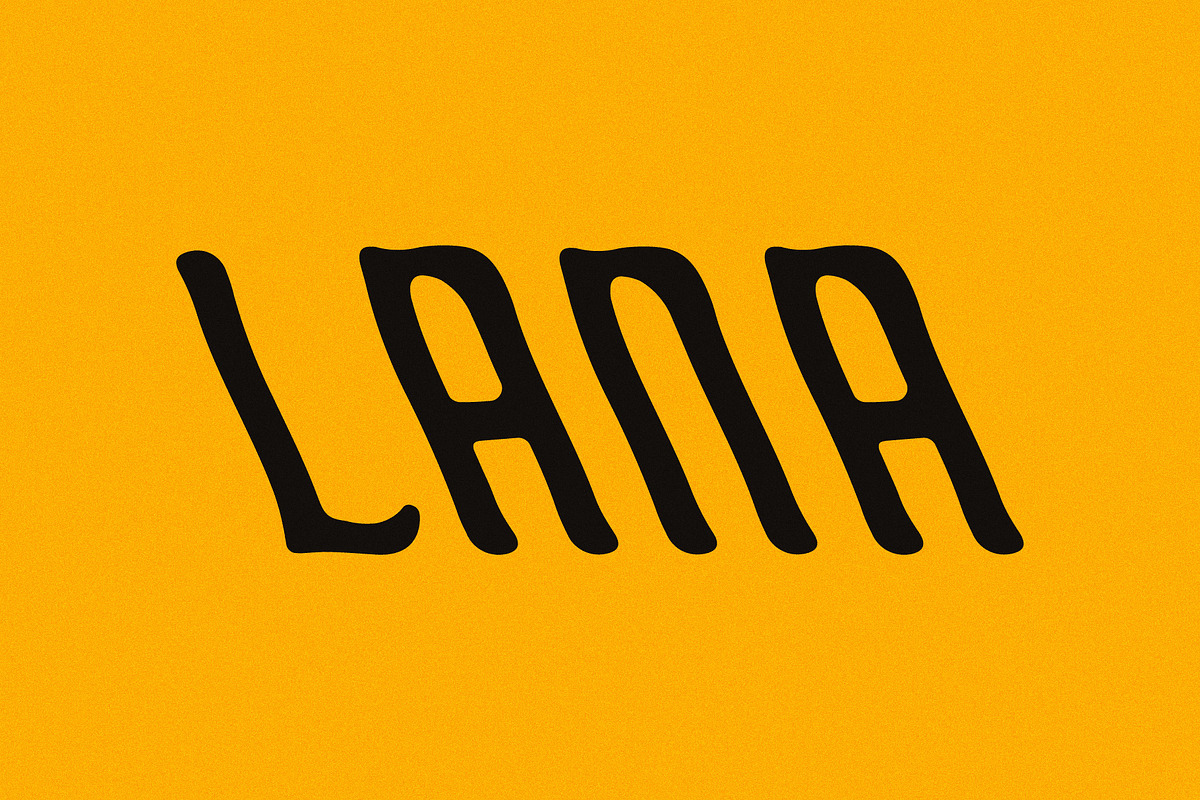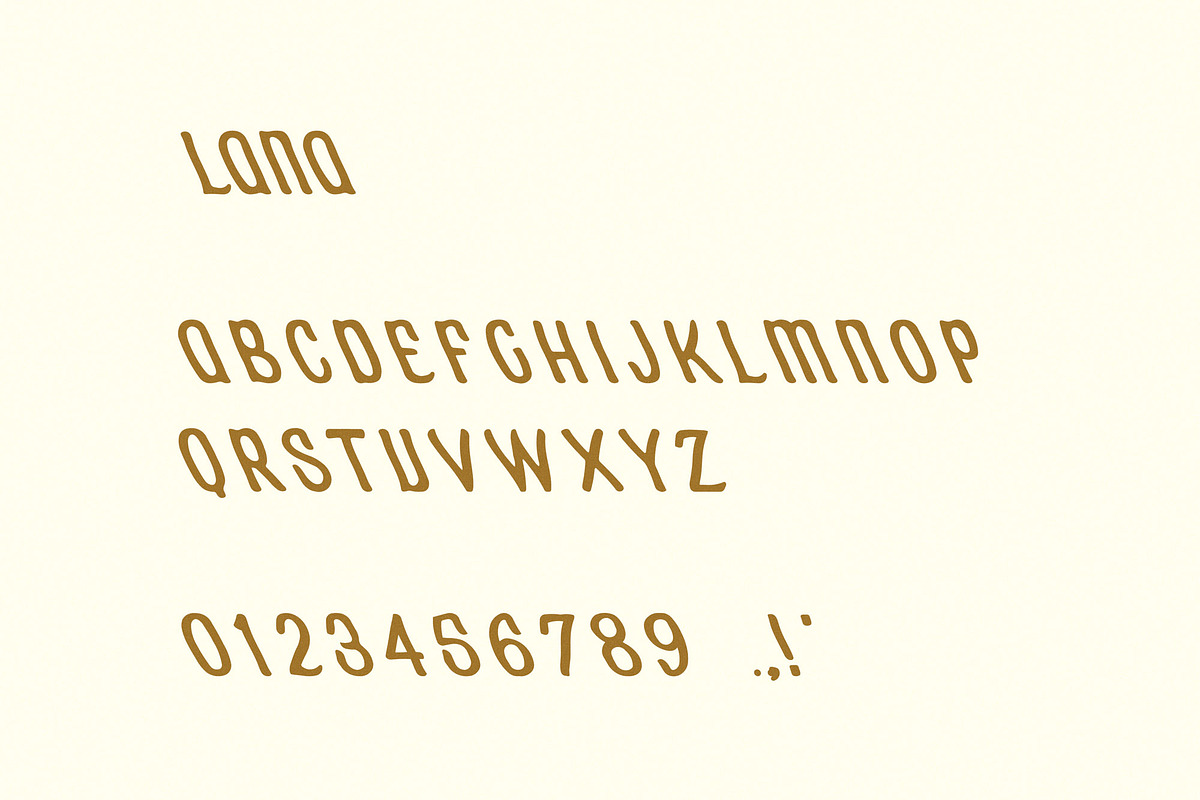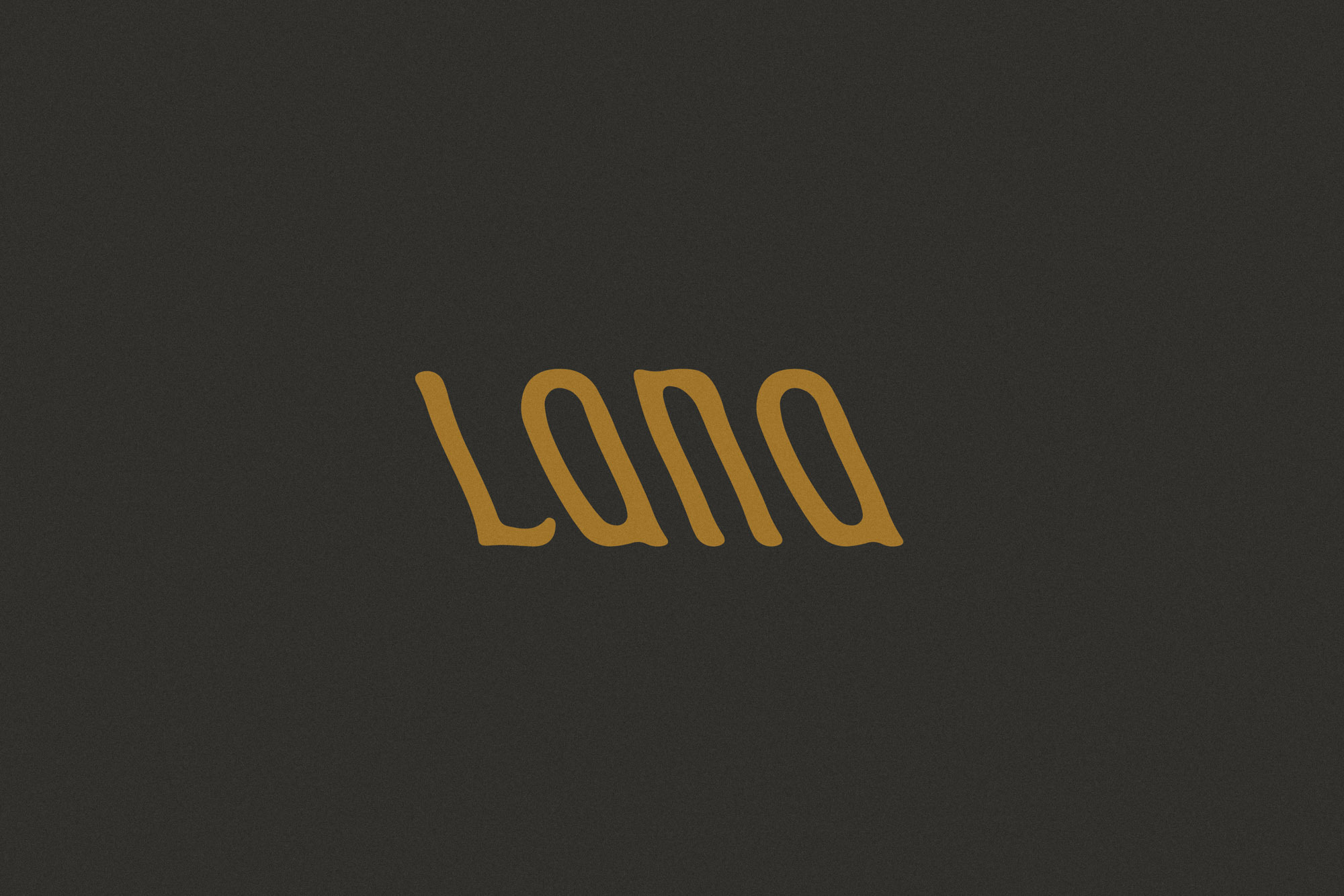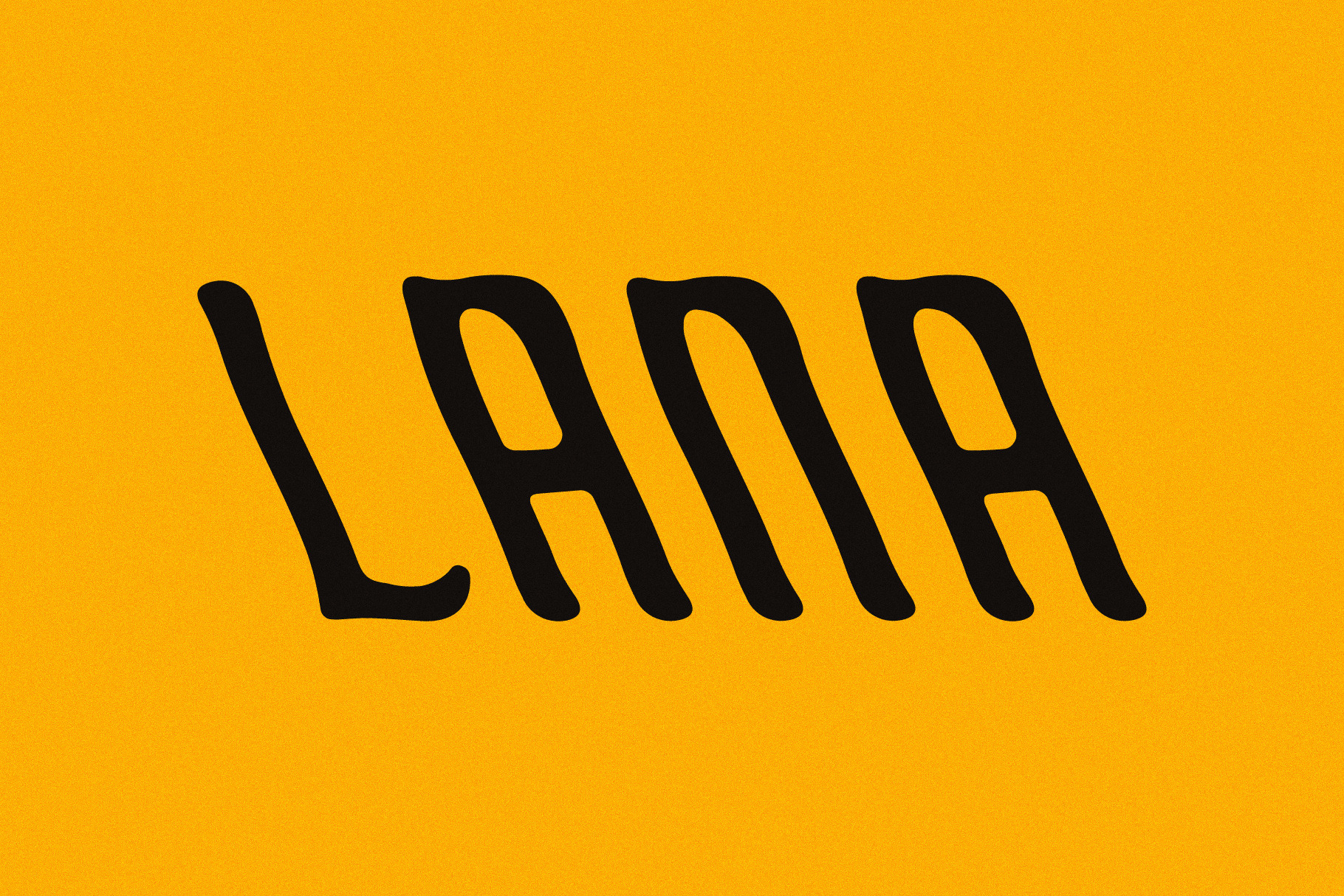
Lana | Slanted Display Font
Lana is a typeface inspired by one thing and one thing only: Spicy food. Don't be afraid to break some rules - stretch and squash to you're liking to mimic the featured photos.
Basic Latin support with a limited set of accented characters.